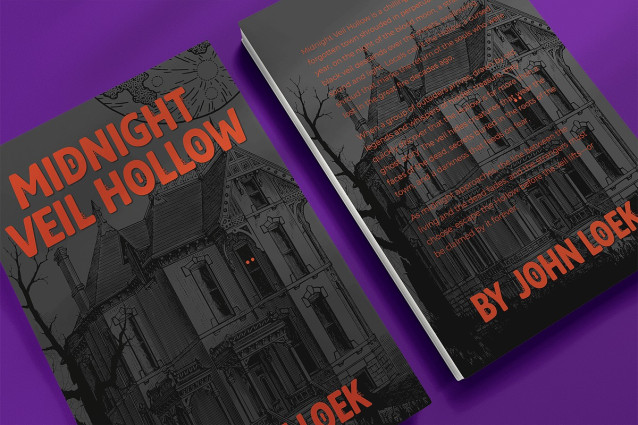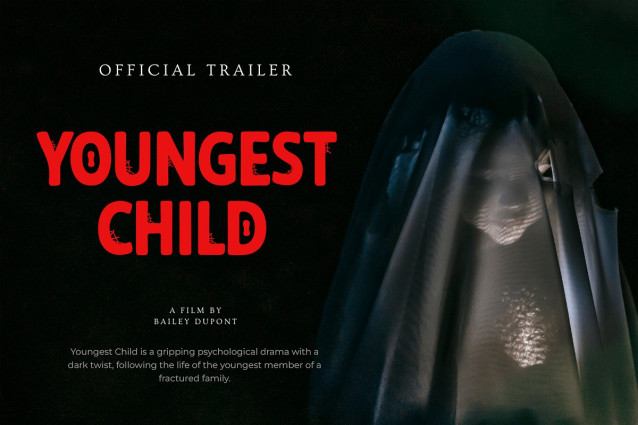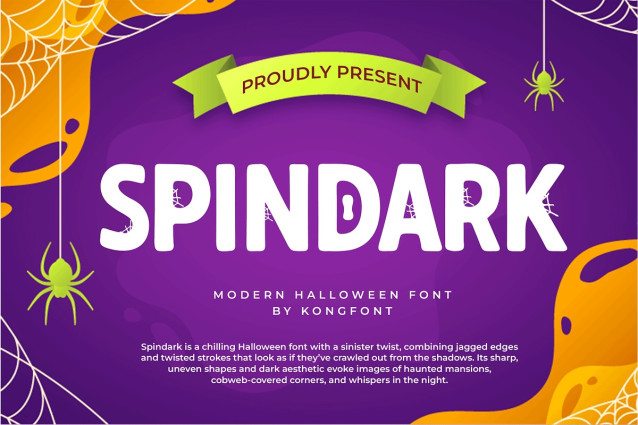
Spindark Font
Spindark Font is a modern Halloween font designed to add a chilling yet stylish touch to your creative projects. With sharp edges, spooky curves, and an eerie vibe, this typeface perfectly captures the spirit of Halloween while maintaining a clean and modern aesthetic.